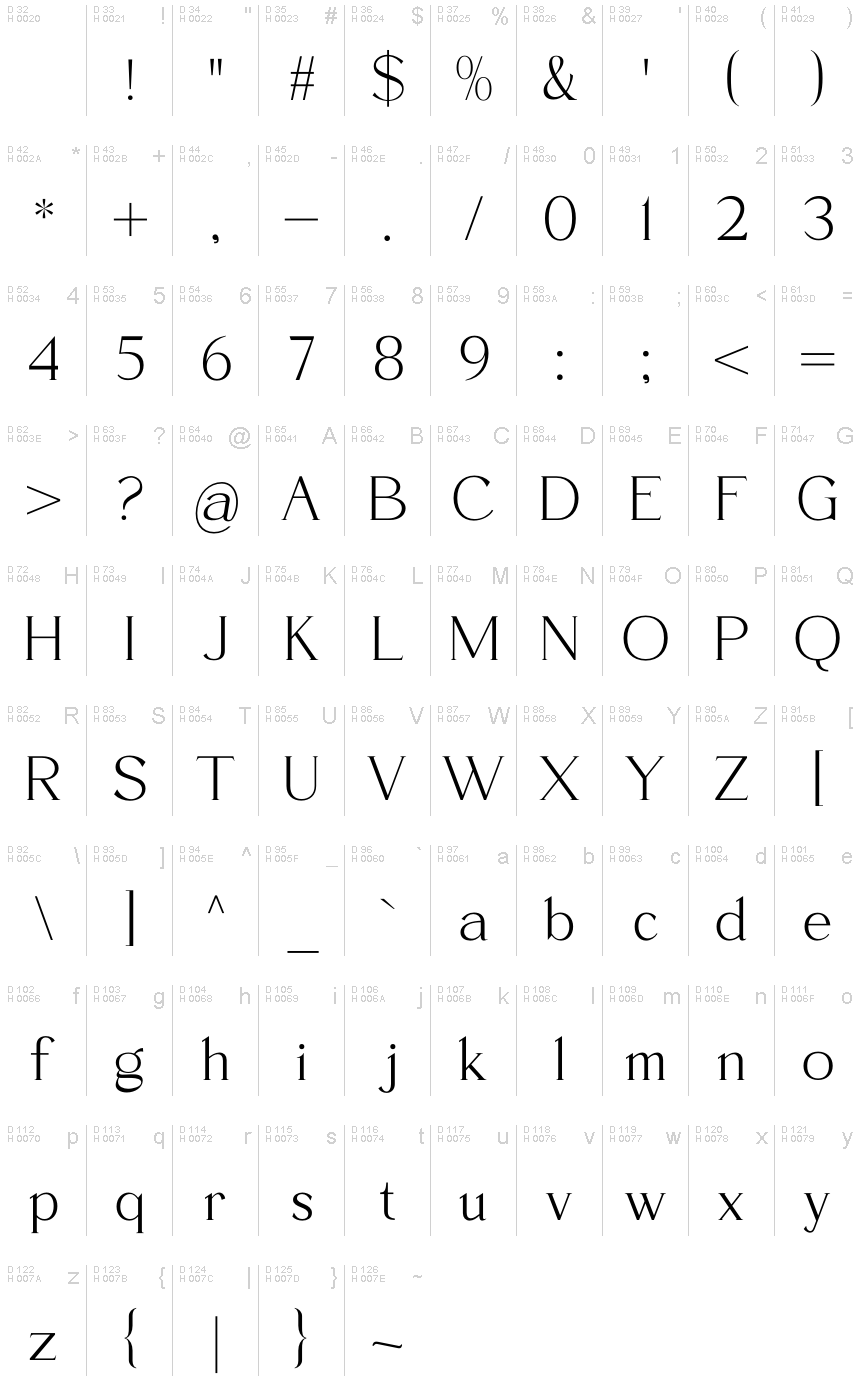
Qafientola
Qafientola, a captivating serif font crafted by Storytype Studio, emanates a timeless elegance. With its refined strokes and harmonious balance, this typeface exudes a sense of sophistication and understated charm. Its delicate serifs and subtle variations in stroke width lend a touch of sophistication, while the overall impression conveys a sense of traditional craftsmanship. Qafientola's refined aesthetic seamlessly bridges the gap between classic and contemporary, making it a versatile choice for a wide range of design applications.
Qafientola's versatility shines through its ability to adapt to various design contexts. From editorial and publishing projects to branding and packaging, this font's elegant charm can elevate the visual impact of any design. Its legibility and refined details make it an excellent choice for both display and body text, ensuring a polished and refined look across all applications.